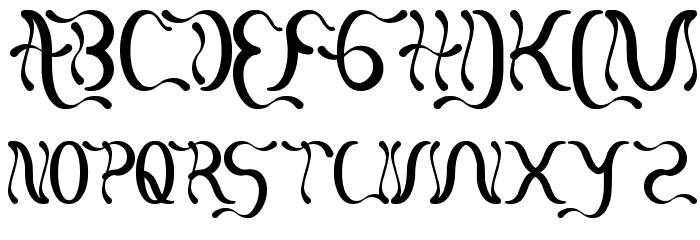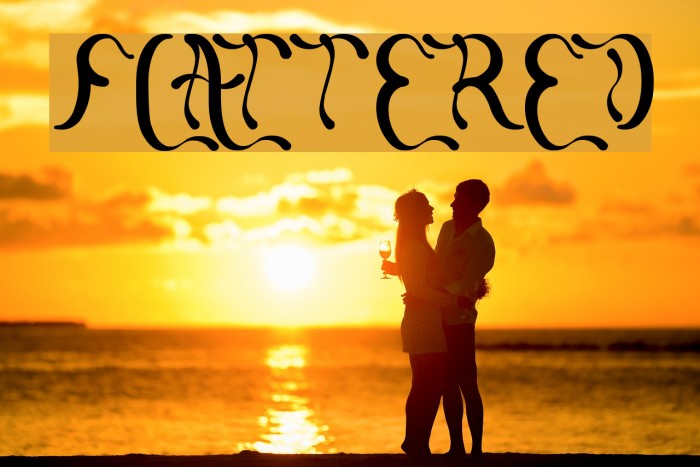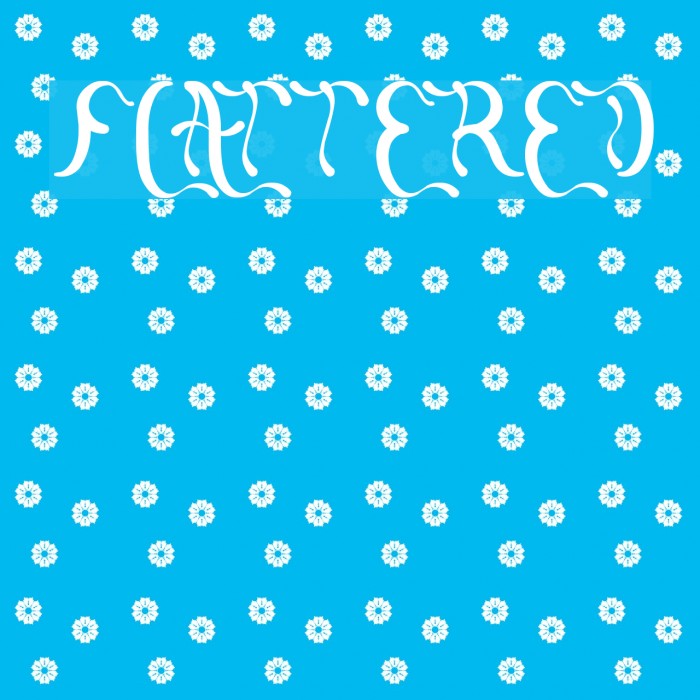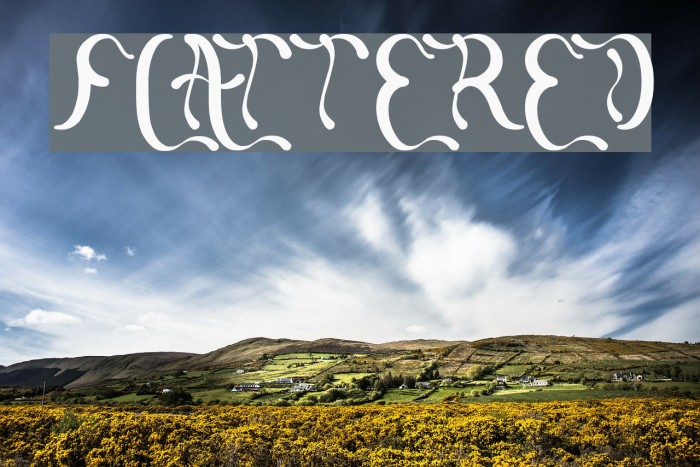
flattered Font
This font features a highly decorative and artistic style, characterized by its elaborate and flowing serifs that extend into elegant curves and swirls. The letters are bold and have a strong presence, with a unique blend of traditional serif elements and whimsical, almost calligraphic flourishes. The overall design is reminiscent of vintage or fantasy themes, making it stand out as a statement piece. The uppercase and lowercase letters maintain a consistent style, with the uppercase being particularly ornate. The numbers and special characters follow the same decorative theme, ensuring a cohesive look across all characters.
A decorative and whimsical serif font with elaborate curves and swirls.
- Proposed Projects: Ideal for fantasy-themed projects, vintage posters, book covers, and artistic invitations.
- Overall Style: Vintage, Decorative